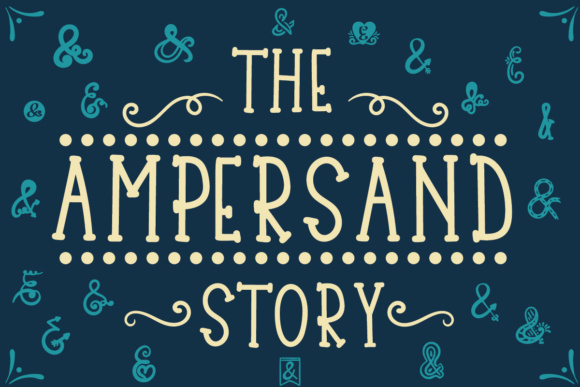
In a digital landscape where uniformity reigns supreme, The Ampersand Story Font emerges as a breath of fresh air, a captivating script font family that exudes charm and individuality. Its creator, Lickable Pixels, has meticulously crafted each ampersand (&) symbol, imbuing them with a unique personality and hand-drawn charm, transforming them into miniature works of art.
With The Ampersand Story Font, gone are the days of mundane ampersands, replaced by an array of visually stunning options that will elevate your designs to new heights of creativity. Unleash your imagination and let your words dance across the page, adorned with ampersands that mirror your unique style and vision.
This versatile font family seamlessly adapts to a myriad of projects, from personal invitations and greeting cards to eye-catching logos and social media posts. Its inherent elegance lends a touch of sophistication to wedding invitations, while its playful nature adds a dash of whimsy to children's books and illustrations.
Imagine the impact of an ampersand that resembles a delicate butterfly, its wings fluttering with grace. Or perhaps you prefer an ampersand adorned with intricate floral motifs, evoking the beauty of nature's tapestry. The possibilities are endless, and each unique ampersand holds the power to transform your designs into captivating visual narratives.
The Ampersand Story Font is not merely a collection of symbols; it's an invitation to express yourself creatively, to break free from the mundane and embrace the extraordinary. With its boundless versatility, it caters to a diverse range of design aesthetics, from classic and timeless to modern and edgy.
If you seek a font that sparks joy and ignites your creativity, look no further than The Ampersand Story Font. Its playful spirit and endless possibilities will breathe new life into your projects, leaving a lasting impression on your audience.